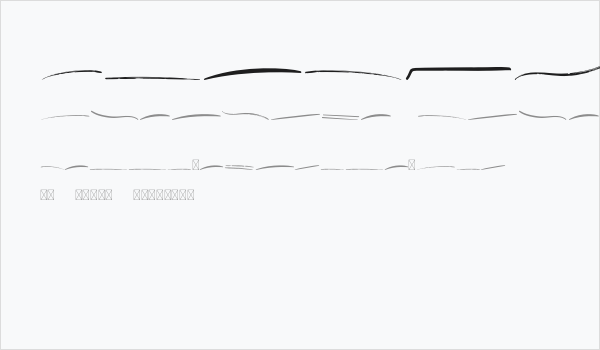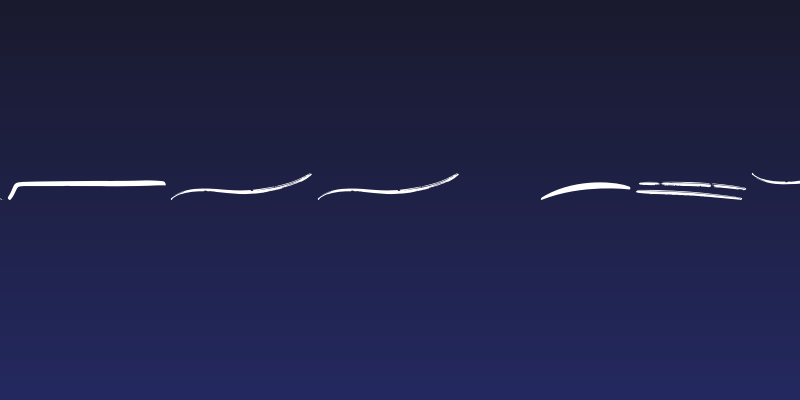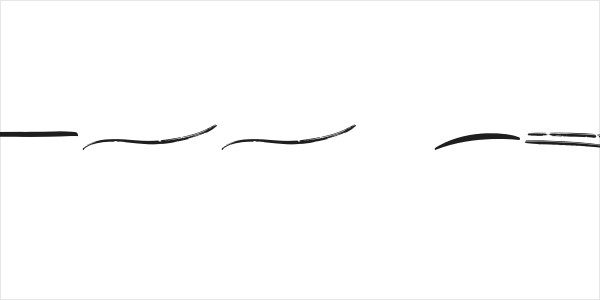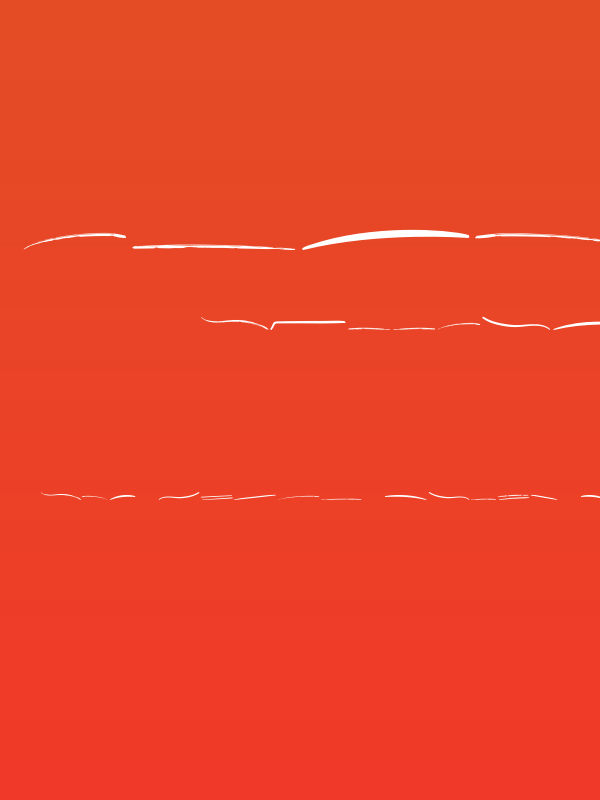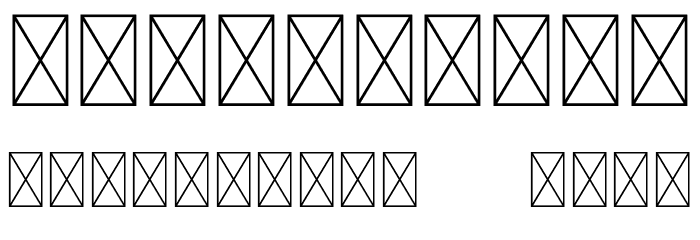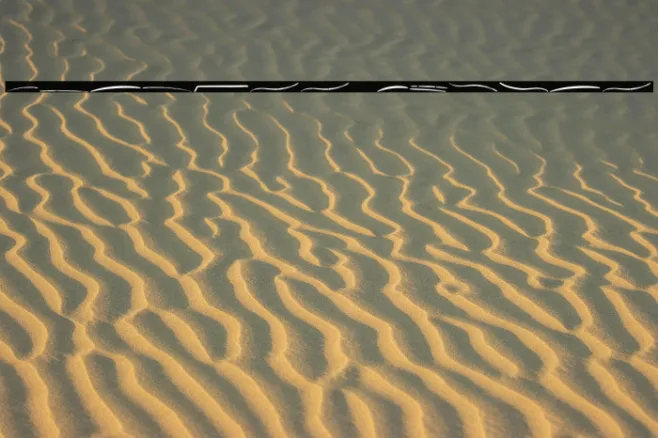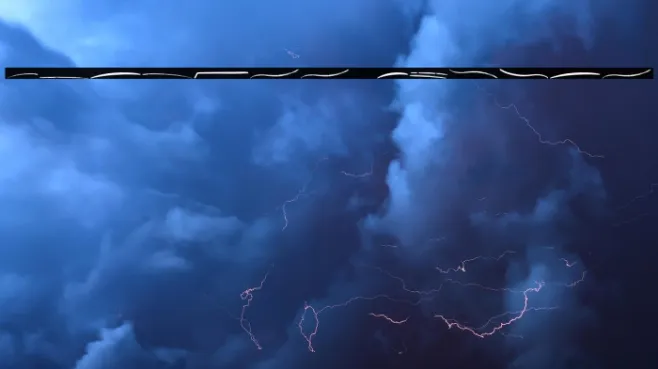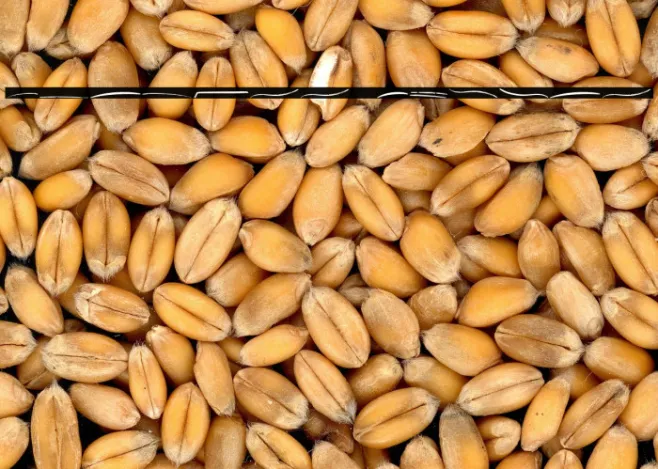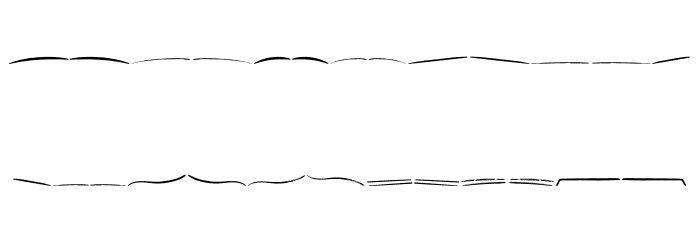
Gladyss Extras Font
Gladyss Extras Description
A collection of decorative hand-drawn elements including wavy and straight lines with organic, uneven strokes, and outlined square frames with X marks inside, resembling placeholders or sketch-style boxes.
| Overall Style | Decorative, Hand-drawn |
| Use Case | Accents, dividers, placeholders, creative layouts |
| Proposed Projects | Scrapbooking, invitations, digital planners, comic panels, web wireframes, creative presentations. |